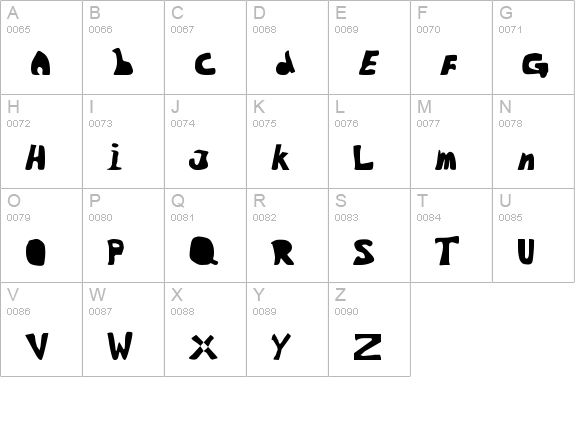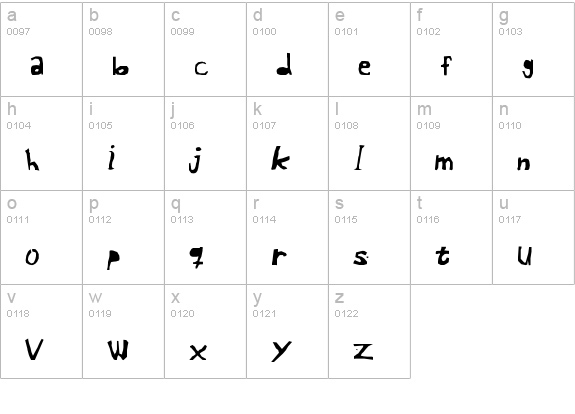
Caffeine Font Details
Caffeine font is a beautifully crafted typeface that exudes energy and vibrancy. Its sleek and modern design is perfect for adding a touch of excitement to any project. This font is sure to make a bold statement, whether it's used for headlines, logos, posters, or any other creative endeavor. What sets Caffeine font apart is not only its unique style, but also the fact that it is completely free. You heard that right! This incredible font can be freely downloaded at FontsMarket.com, making it accessible to everyone. Now, you don't have to worry about breaking the bank to add a touch of elegance and dynamism to your designs. Caffeine font is perfect for any caffeine lover, as its name implies. It captures the essence of that invigorating jolt you get from a cup of your favorite brew, translating it into a visually captivating font. Its sharp edges and bold strokes give it a sense of urgency, while its smooth curves add a touch of sophistication. Whether you're designing a coffee shop menu, a fitness blog, or a trendy fashion brand, Caffeine font will elevate your project to new heights. Its versatility allows it to seamlessly blend into any design concept, while still commanding attention and making a lasting impression. So why wait? Download Caffeine font today from FontsMarket.com and let your creativity flow freely. Unleash the power of this font, and watch as your designs come to life with a burst of energy and style. With Caffeine font, you have the power to captivate your audience and leave a lasting impact. Get ready to take your designs to the next level with this exceptional, freely available font.